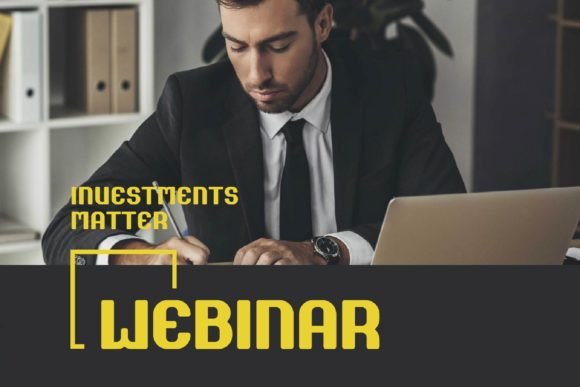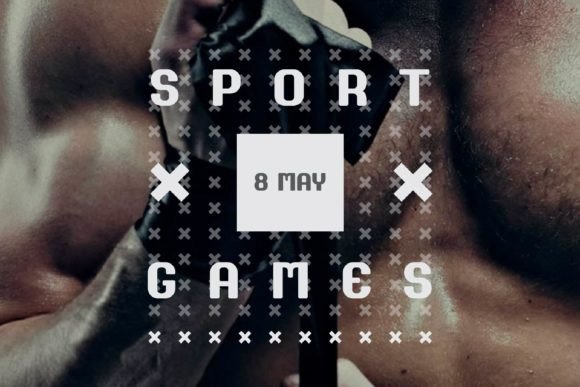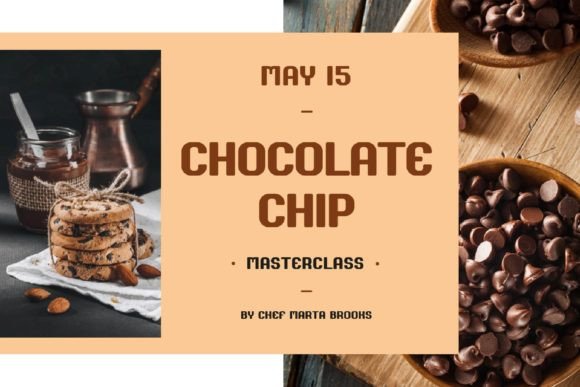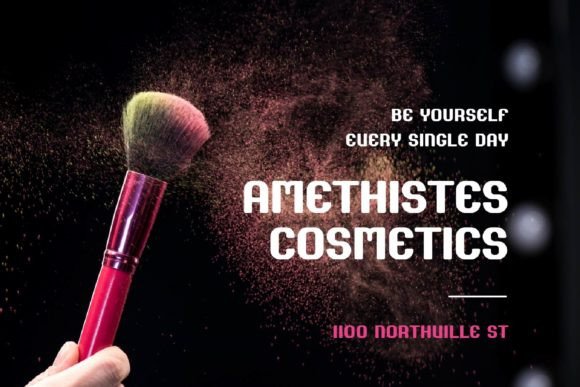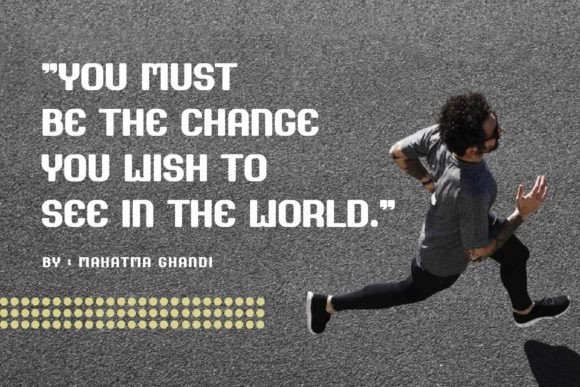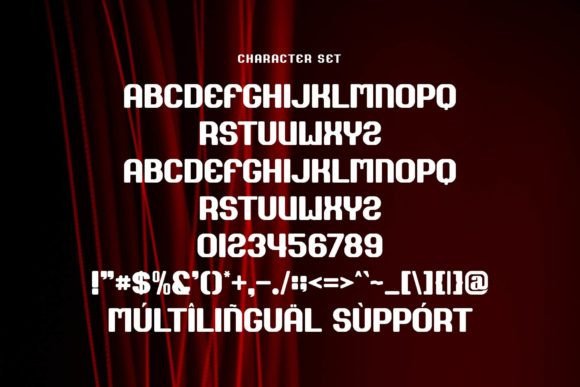
Introduction to Monde De Mayor Font Font
Fonts play a crucial role in design, and the Monde De Mayor Font font is a typeface that brings both character and versatility to any project. Whether you’re working on a branding project, a website, or a print design, the Monde De Mayor Font font offers a unique style that can elevate your work.
| 📌 Font Name | Monde De Mayor Font |
| 👤 Author | Aqeel_Art |
Monde De Mayor is a sans type font.
It is inspired by the famous minimalist logo perfect for the purposes of designing templates, brochures, videos, advertising branding, logos, invitation, layout design, elegant crafting, beauty design and so much more .
Key Features of Monde De Mayor Font Font
Why Choose Monde De Mayor Font Font?
The Monde De Mayor Font font is more than just a typeface – it’s a design tool that helps you communicate your message with style and clarity. Its unique character set and versatile design make it suitable for a wide range of applications, from elegant invitations to bold headlines.
With its carefully crafted letterforms and balanced proportions, the Monde De Mayor Font font ensures readability and visual appeal across all mediums.
What makes Monde De Mayor Font font special?
The Monde De Mayor Font font stands out with its unique design, exceptional readability, and versatility across various design applications.